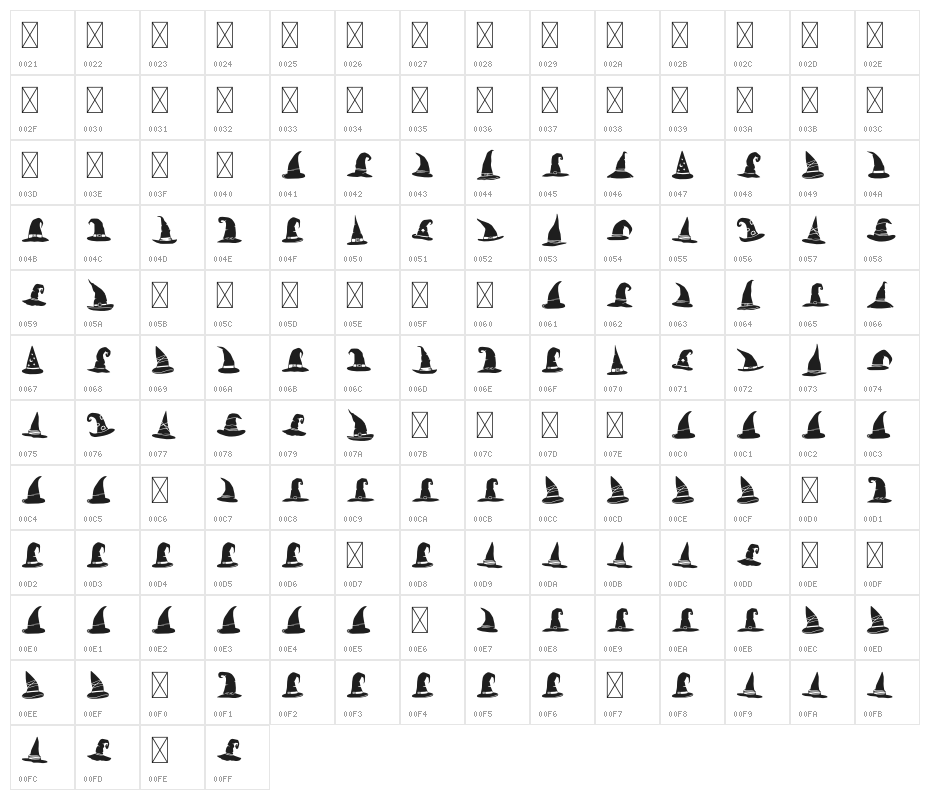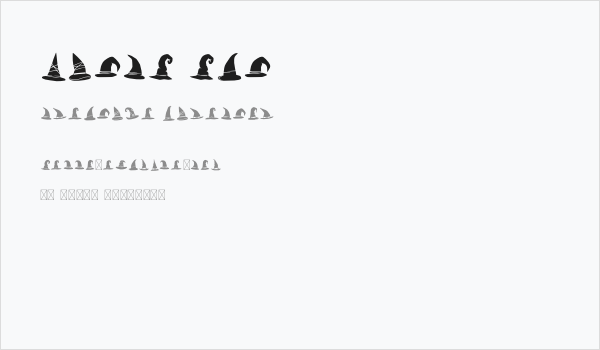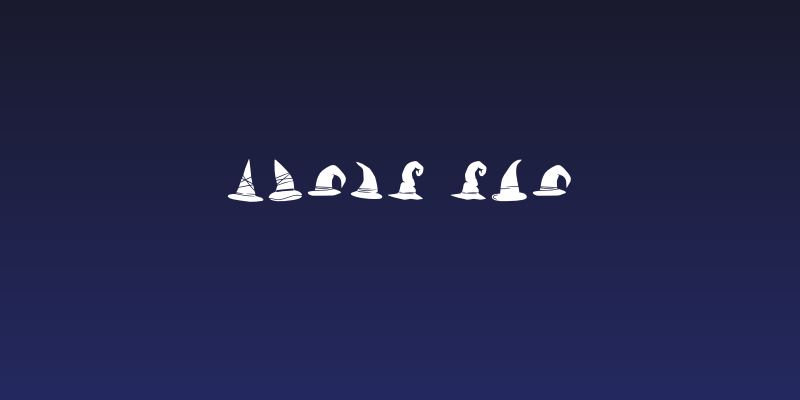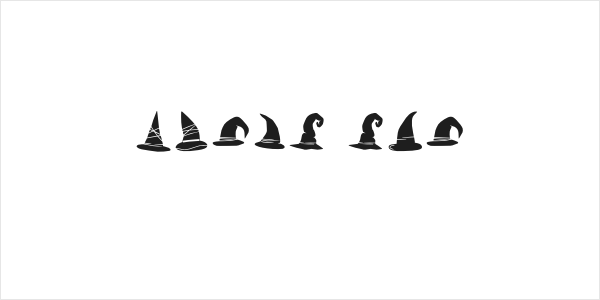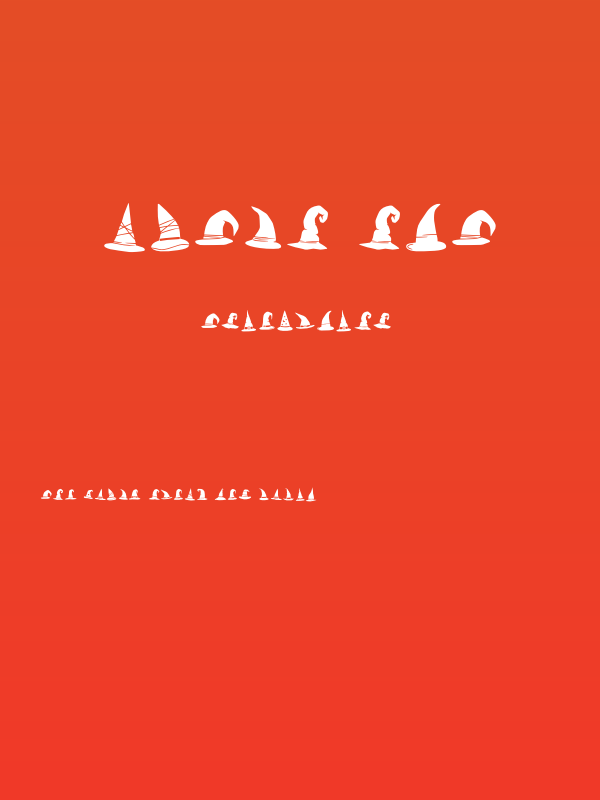
Witch Hat Font
Witch Hat Description
A decorative display font featuring a variety of whimsical witch hat silhouettes as glyphs for each letter and number, with playful and irregular shapes. The symbols are bold, filled black, and highly stylized, evoking a magical or Halloween theme.
| Overall Style | Decorative, Whimsical, Thematic |
| Use Case | Headlines, Logos, Posters, Themed graphics |
| Proposed Projects | Halloween invitations, party posters, themed event branding, children’s book titles, seasonal decor. |